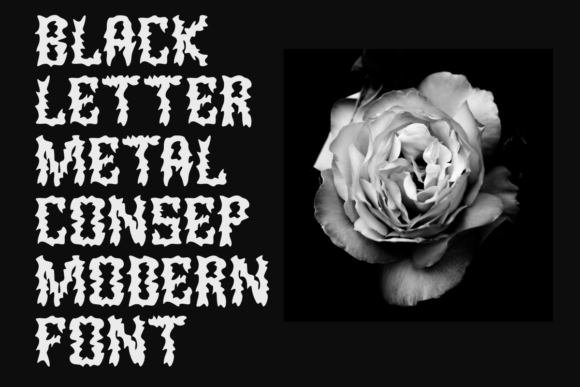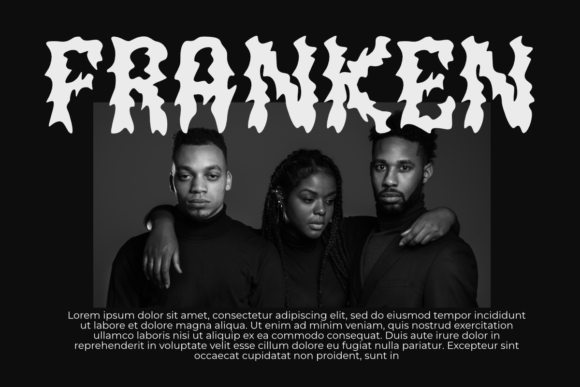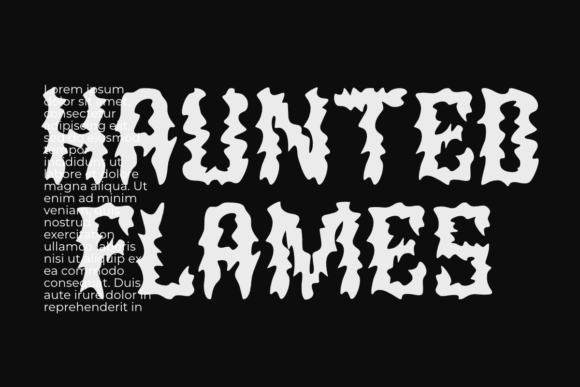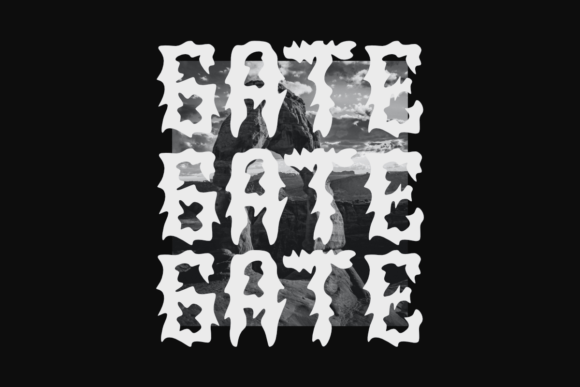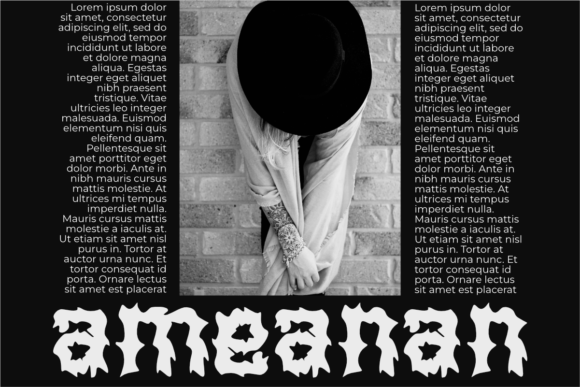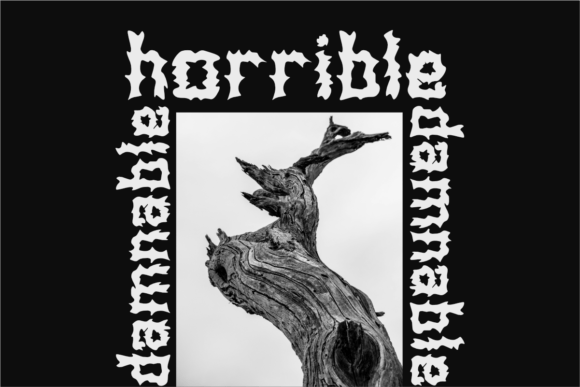
The Perfect Blend of Darkness and Elegance
Have you ever stared at a blank page, searching for the perfect font to bring your eerie story to life? The words just won’t flow until you stumble upon the perfect combination of mystery and style. For many designers, that moment of creative spark is the key to unlocking a truly captivating design.
Enter the Bunfire Font, a typographic masterpiece that combines the strength and intensity of a fiery blaze with the subtle charm of a delicate rose. This enigmatic font is perfect for designers who crave a unique and dramatic effect, without sacrificing elegance. With its bold and characterful appearance, the Bunfire Font is an unforgettable choice for any creative project, from horror posters and book covers to branding endeavors that seek to highlight a dark, mystical vibe.
Bunfire Font Key Features
- Unique Characteristics: The font features a unique, hand-drawn design with subtle imperfections, giving it a personal and artistic touch.
- Style Variations: The font includes multiple style variations, including regular, bold, italic, and bold-italic, allowing for creative flexibility in design.
Bunfire Font Review
I was excited to dive into the world of Bunfire Font, a font designed to evoke the warmth and coziness of a campfire. At first glance, the font’s unique design caught my eye ✨. The irregular shapes and organic feel of the letters are reminiscent of flames dancing in the night.
Here are some of the things that I think work well about Bunfire Font:
- Its unique and expressive design makes it perfect for projects that need a touch of whimsy and personality ✨.
- The font’s organic feel gives it a natural, handcrafted look that’s perfect for branding and design projects.
- The font’s versatility allows it to be used in a wide range of applications, from logos to posters to digital interfaces.
- The font may not be suitable for projects that require a more formal or traditional look ⚠️.
- The irregular shapes of the letters may make it difficult to read in certain situations, such as in small font sizes or in text-heavy layouts.
Overall, I think Bunfire Font is a unique and interesting addition to any designer’s toolkit. While it may not be suitable for every project, it’s a great choice for designers looking to add a touch of personality and whimsy to their work.
Use the Bunfire font to add a unique and modern touch to your designs. It pairs well with bold and bright colors, and can be used to create eye-catching headlines and titles.
The Bunfire font is commonly used for:
- Social media graphics